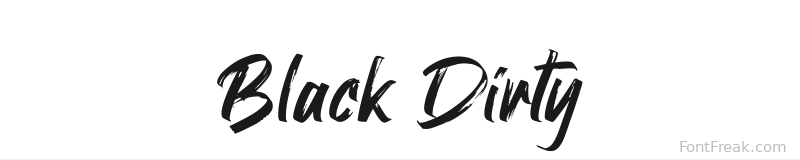
BlackDirty
Black Dirty
BlackDirty by Kong Font is a striking display typeface that effortlessly combines elegance with an edgy flair. As a free-to-use font, it falls under the freeware license, making it accessible for a variety of creative projects. The visual characteristics of the BlackDirty font are defined by its bold, brush-like strokes that convey a sense of movement and dynamism. The varied stroke weight adds a layer of depth, while the slightly irregular spacing between characters enhances its handmade feel, contributing to its overall artistic vibe.
This font is particularly well-suited for eye-catching applications such as wedding invitations, where its unique style can evoke emotion and sophistication. It shines in movie posters, capturing attention with its dramatic flair, and can also be used effectively for restaurant menus, giving a touch of personality to the dining experience. Additionally, small business owners and content creators can leverage the BlackDirty font to elevate branding materials, social media graphics, and promotional content, making their designs stand out in a crowded marketplace.
The target audience for BlackDirty includes graphic designers looking for versatile and expressive typefaces, as well as entrepreneurs who want to add a distinctive touch to their visual communications. The font's artistic nature makes it perfect for projects that require a personal touch, inviting viewers to connect with the content on a deeper level.
What sets the BlackDirty font apart is its ability to blend boldness with artistic flair, making it a perfect choice for projects that aim to leave a lasting impression. Whether you're working on a creative campaign or designing a unique piece of merchandise, the BlackDirty font free download provides an ideal solution for those seeking a captivating typeface that stands out from the crowd.